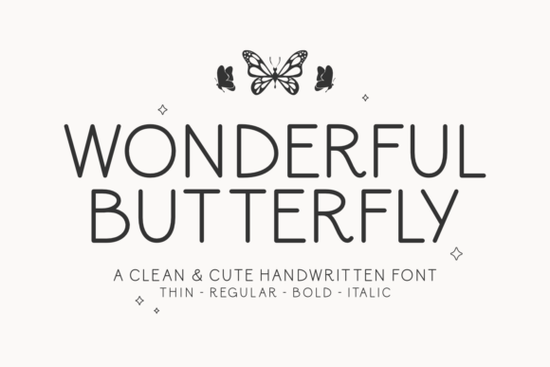
If you've been searching for a handwritten font that feels personal without looking messy, Wonderful Butterfly Font is worth a close look. It's a script-style typeface that balances a contemporary, handcrafted feel with clean enough lines to stay readable at small sizes. Whether you're designing wedding invitations, social media graphics, or print-on-demand products, this font brings a warm, approachable quality to your work.
What Makes Wonderful Butterfly Font Different from Other Handwritten Fonts?
There are plenty of handwritten fonts out there, but many fall into two camps: too casual or too stiff. Wonderful Butterfly sits comfortably in the middle. Each letter looks hand-drawn, giving your designs a genuine, crafted feel, yet the letterforms are clean enough for professional use.
It comes in four weights:
- Thin – light and airy, great for subtle accents
- Regular – the everyday workhorse weight
- Bold – stronger presence for headlines and emphasis
- Italic – adds movement and a casual flair
Having multiple weights means you can create a clear visual hierarchy without mixing in a second font family. That's a real time-saver when you're working on a multi-page design or a brand kit.
Where Can You Use This Font?
Wonderful Butterfly works well across a surprisingly wide range of projects. Here are some ideas based on what designers and small business owners commonly create:
- Wedding and event stationery – invitations, save-the-dates, menu cards
- Branding and logos – especially for boutique or lifestyle brands
- Social media posts – quotes, announcements, story templates
- Print-on-demand products – mugs, tote bags, t-shirts
- Blog headers and website accents
- Greeting cards and wall art
If you already work with script-style typefaces, you'll find that Wonderful Butterfly fits right into your existing toolkit while offering its own distinct personality.
How Does It Compare to Similar Fonts on Creative Fabrica?
Creative Fabrica has a solid collection of handwritten and script fonts. If you're browsing, you might also come across Hello Honey, which leans more into a bouncy, playful aesthetic. It's a strong choice for fun, casual designs like kids' party invitations or cheerful product labels.
Then there's Heart Style, which has a romantic, flowing character that pairs beautifully with Valentine's Day or love-themed projects. If you prefer something more grounded and structured, Black Sample offers a different take with a cleaner, more minimal script feel.
And for something with a buttery, smooth quality, Milkbutter brings a soft warmth that works especially well for food-related branding and cozy lifestyle designs.
What sets Wonderful Butterfly apart from these options is its versatility. It doesn't lean too far in any one direction too playful, too romantic, too minimal. Instead, it adapts to the context you place it in, which makes it a practical pick if you want one script font that can handle multiple types of projects.
Is It Readable Enough for Small Text?
This is a fair concern with any handwritten font. The short answer: yes, for most use cases. The designer kept the letter spacing and line clarity tight enough that body-sized text (around 12–14pt) remains legible, especially in the Regular and Bold weights.
That said, if you're setting long paragraphs of body copy, a handwritten font isn't the best choice regardless of how clean it is. Use Wonderful Butterfly for headlines, subheadings, callouts, and short phrases where its personality can shine without hurting readability.
Tips for Getting the Most Out of This Font
Here are a few practical pointers:
- Pair it with a simple sans-serif for body text. Fonts like Montserrat or Lato complement handwritten scripts without competing for attention.
- Use the weight variations intentionally. Reserve Thin for delicate accents, Regular for general use, and Bold for anything that needs to stand out.
- Adjust letter spacing depending on your medium. Tighten it slightly for large display sizes; leave it open for smaller text.
- Test at the actual size your audience will see it what looks great on a 27-inch screen might not read well on a phone or a small product tag.
If the font fits your style and your project needs, Wonderful Butterfly Font is a solid addition to any designer's library. It won't solve every design challenge, but for projects that need a handcrafted touch with professional polish, it does the job well.